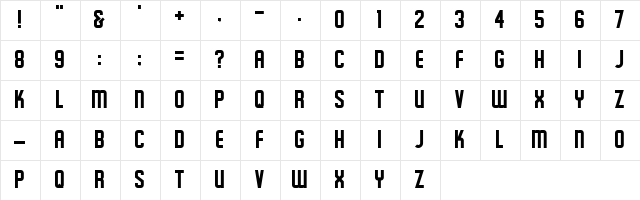
Schluber Regular
Foundry: Haydster
Designer: Haydster
Design Context for Schluber
Schluber is a composed and adaptable typeface that performs quietly and consistently across a wide range of design contexts.